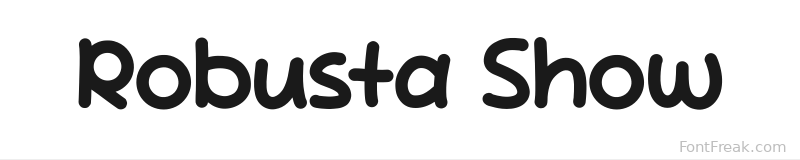
Robusta Show
Robusta Show, designed by Syaf Rizal, is a captivating display font that falls under the category of decorative typefaces. This font is characterized by its bold, rounded strokes and playful appearance, making it an excellent choice for projects that require a touch of whimsy and personality. The stroke weight is consistent yet lively, contributing to its overall charm, while the ample spacing between letters enhances readability and visual appeal. Decorative elements are subtly incorporated, allowing the font to maintain a sense of fun without overwhelming the viewer.
This font is versatile and can be employed in a variety of creative contexts. It is particularly well-suited for wedding invitations, where its playful nature can add a unique flair to the design. Additionally, Robusta Show works wonderfully for movie posters, providing a striking visual impact that captures attention. Restaurant menus can also benefit from its distinctive style, making dishes stand out while ensuring clarity. Moreover, small business branding can leverage this font to create memorable logos and promotional materials, appealing to a wide audience.
Targeting graphic designers, small business owners, and content creators, Robusta Show is ideal for those looking to infuse their projects with a sense of creativity and fun. The font's free availability makes it accessible for anyone seeking to enhance their design toolkit without incurring additional costs.
What truly sets Robusta Show apart is its ability to balance boldness with charm, making it a standout choice for various applications. Its unique blend of playful design and practicality ensures that it not only grabs attention but also maintains a polished look. For those interested, a Robusta Show font free download is readily available, inviting users to explore its potential in their own creative endeavors.